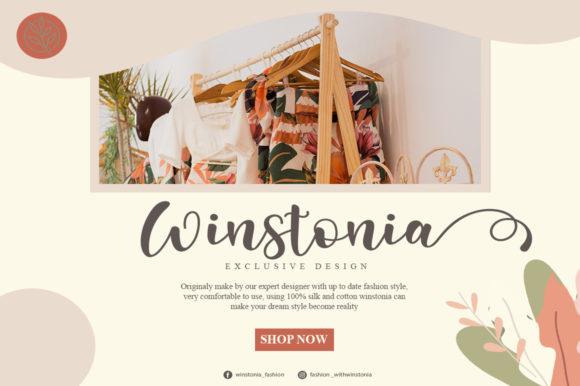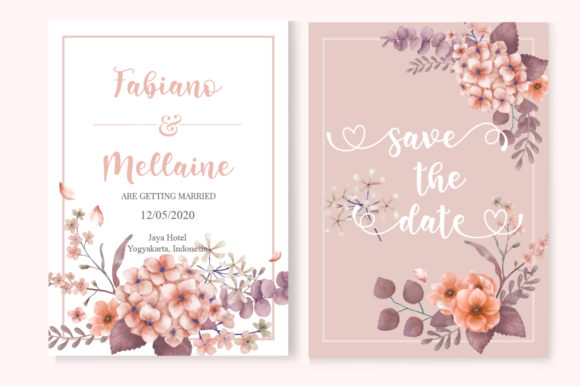
Sweetheart Font
db-ku.com - Script & Handwritten -- Sweetheart simplifies elegance into one truly outstanding handwritten font. This font is the perfect fit for all of your logos, branding, social media, and crafty DIY projects.